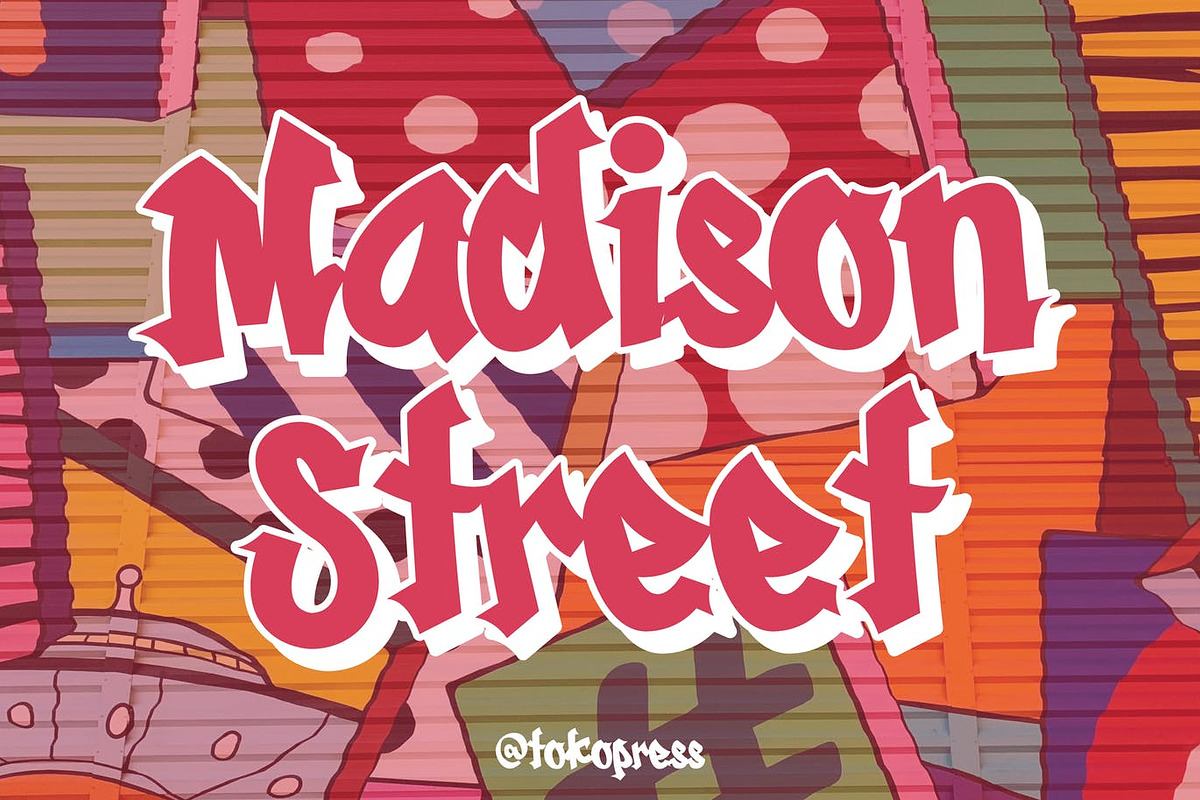
Madison Street - Graffiti Font Free Download is a bold and urban-inspired typeface designed to capture the essence of street art. With its rough, spray-painted look and edgy letterforms, this font is perfect for posters, streetwear branding, album covers, social media graphics, and any design project that needs an urban, rebellious vibe.
Using the Madison Street - Graffiti Font Free Download brings an energetic and creative feel to your designs. Whether you're creating graphics for a music event, a street art project, or urban-inspired branding, this font delivers a unique and impactful style that grabs attention.